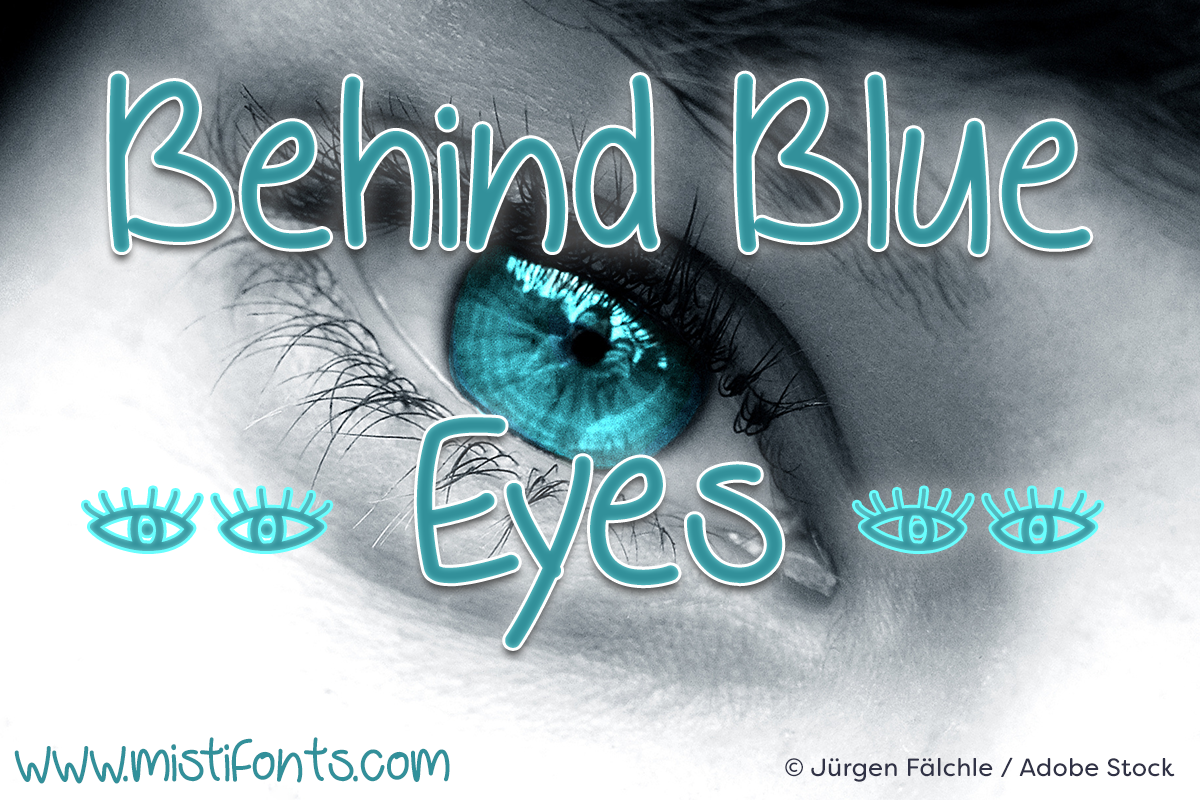
Behind Blue Eyes is an eye-catching handwritten font that is perfect for your craft and design projects!
Special Symbols:Type * (asterisk,backslash) for the eyes